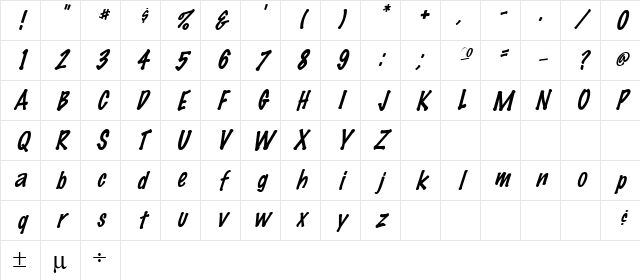
Complete FeltMark Italic glyph index. Displaying only characters natively supported by FeltMark Italic font.
FeltMark is a composed and adaptable typeface that performs quietly and consistently across a wide range of design contexts. The slanted form adds forward momentum and visual energy.
Pro Tip: Use FeltMark for emphasis, pull quotes, and subheadings where its slanted energy can add rhythm to the layout.